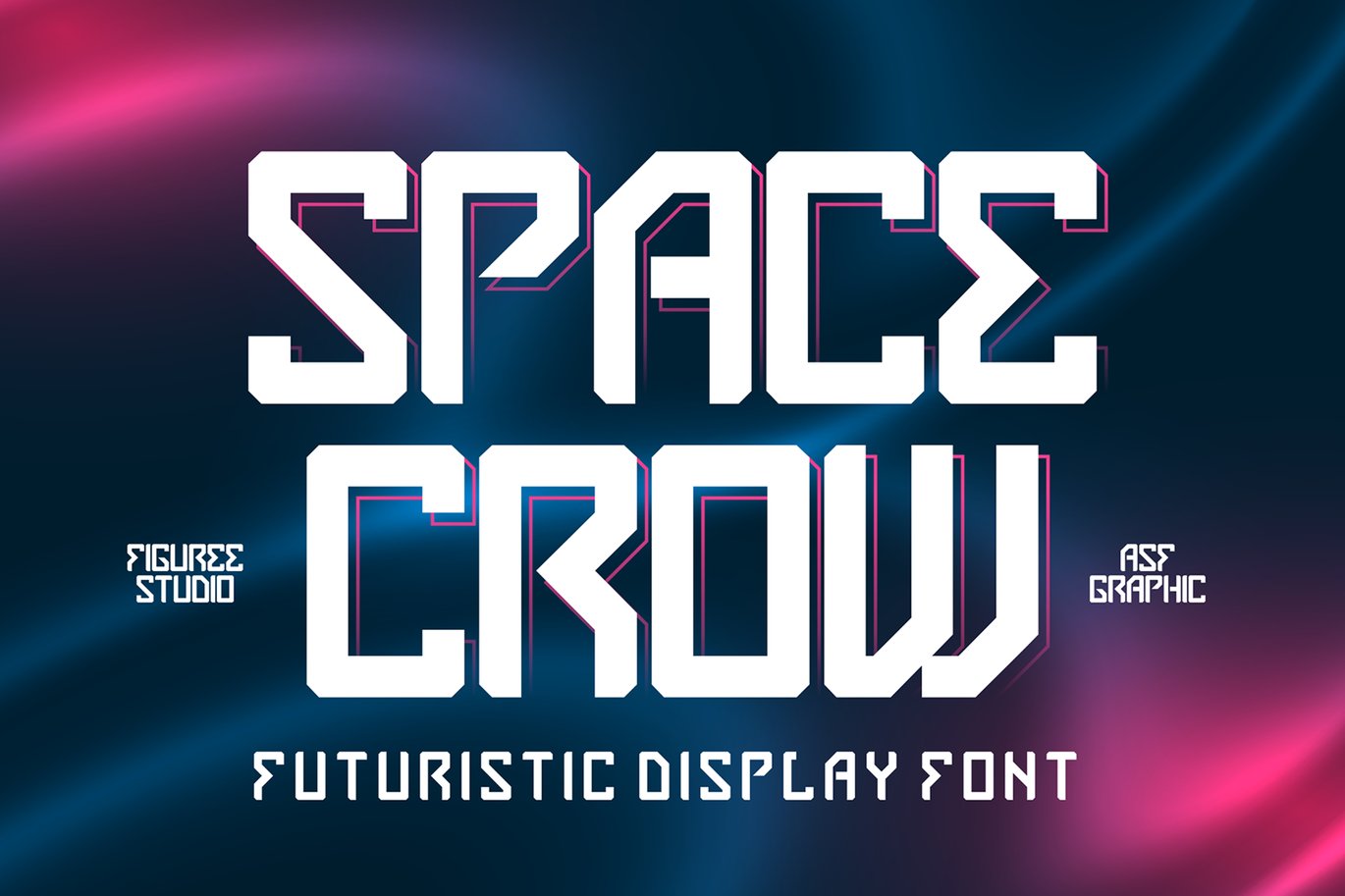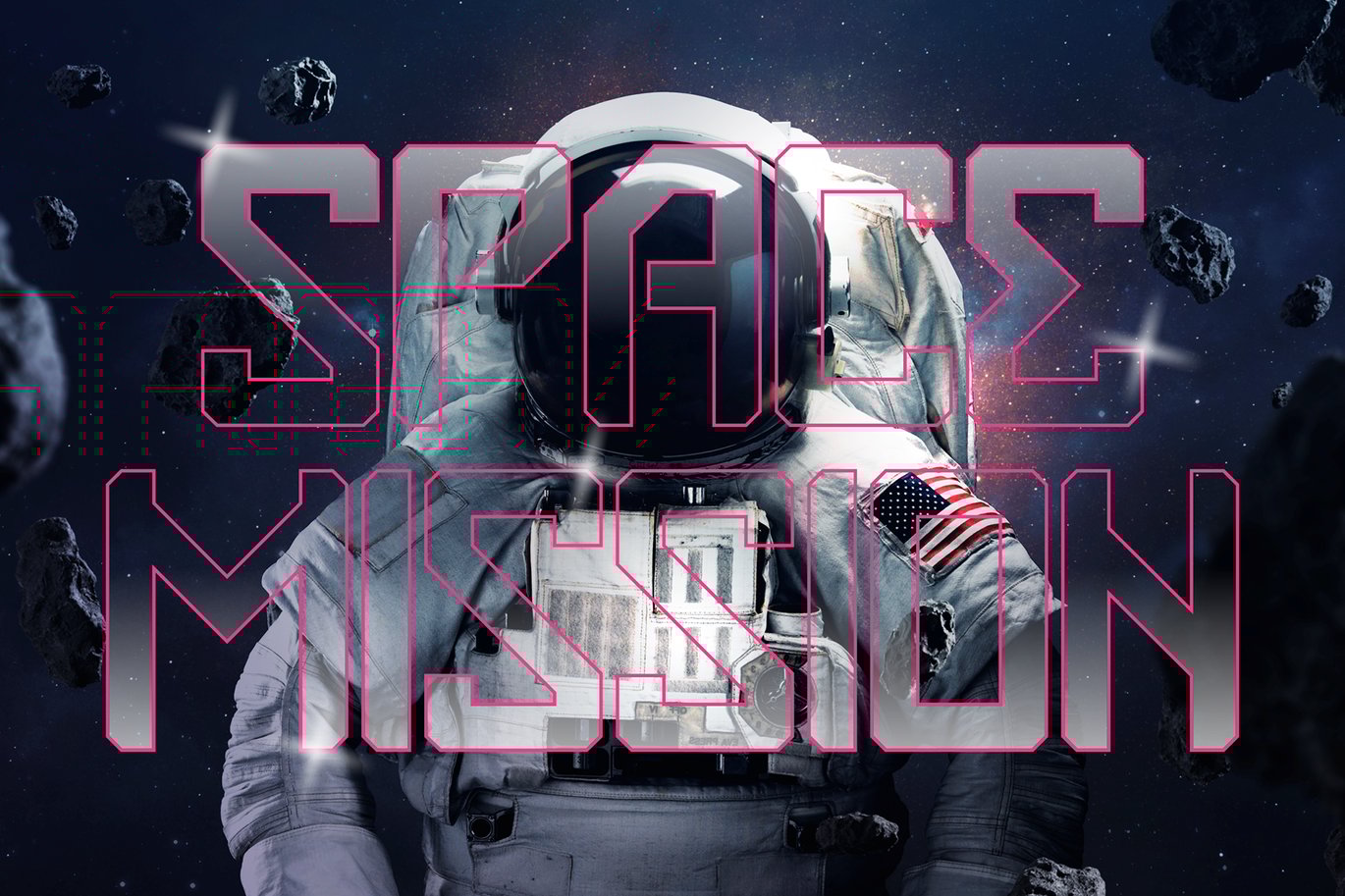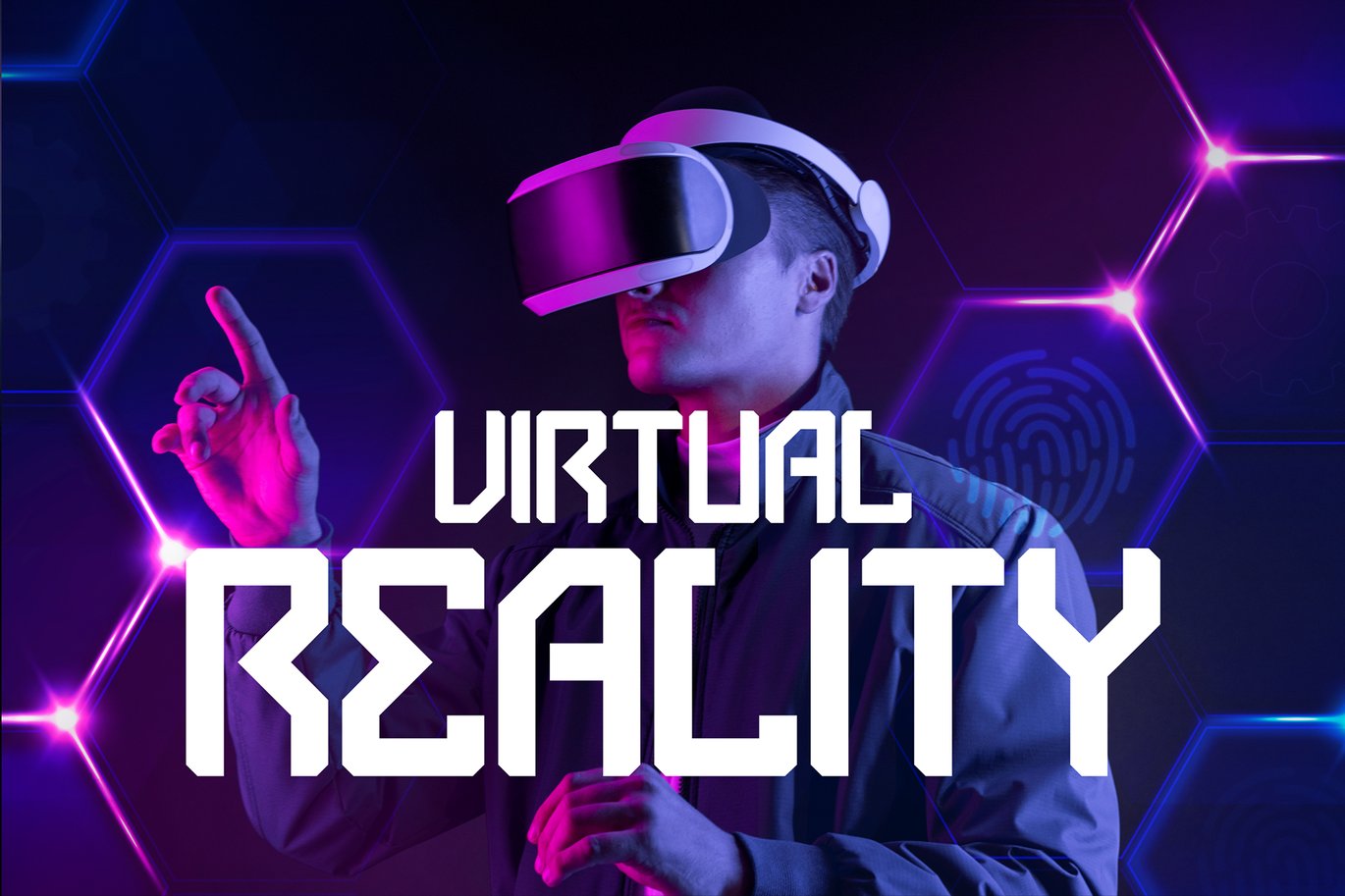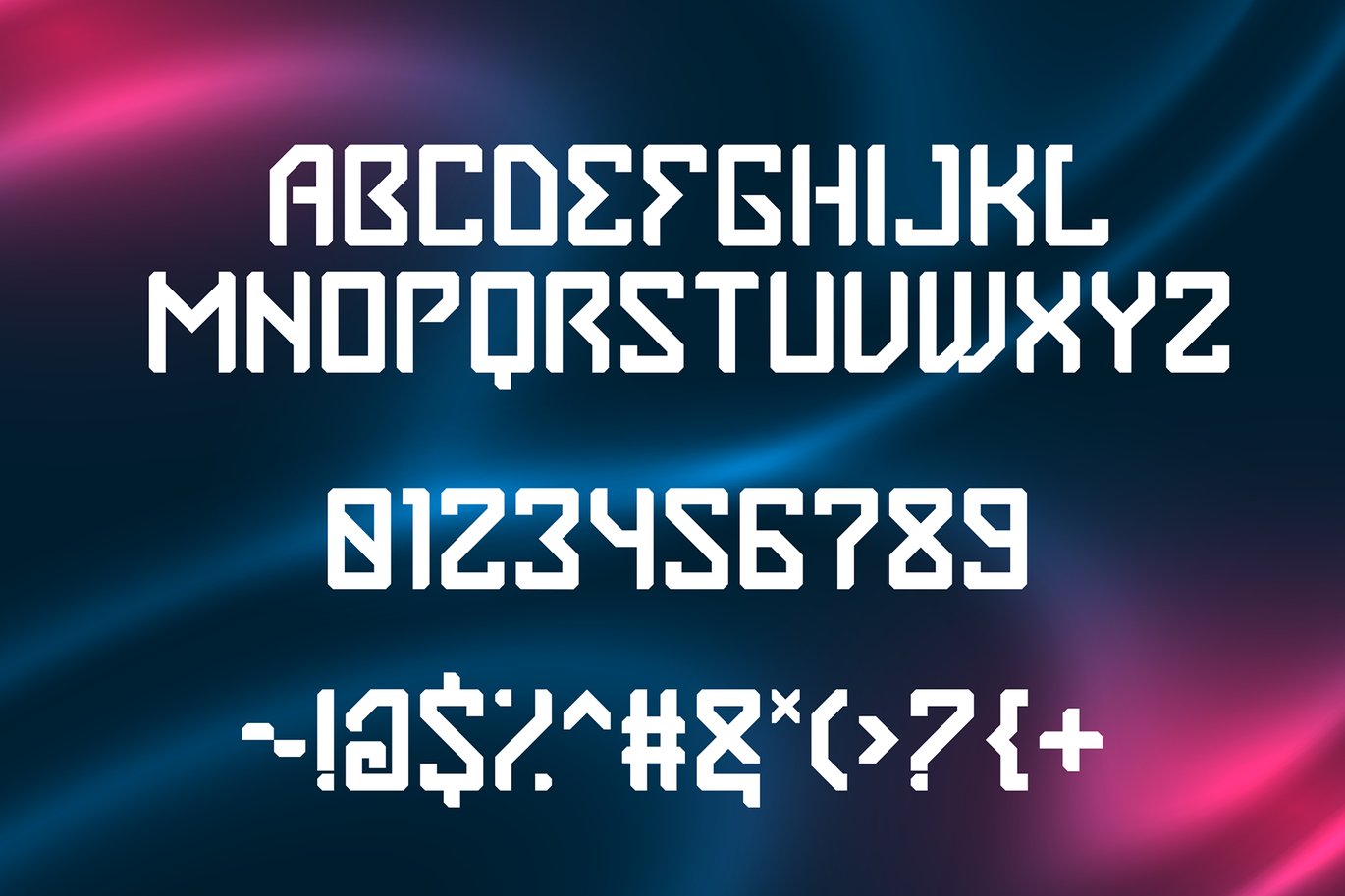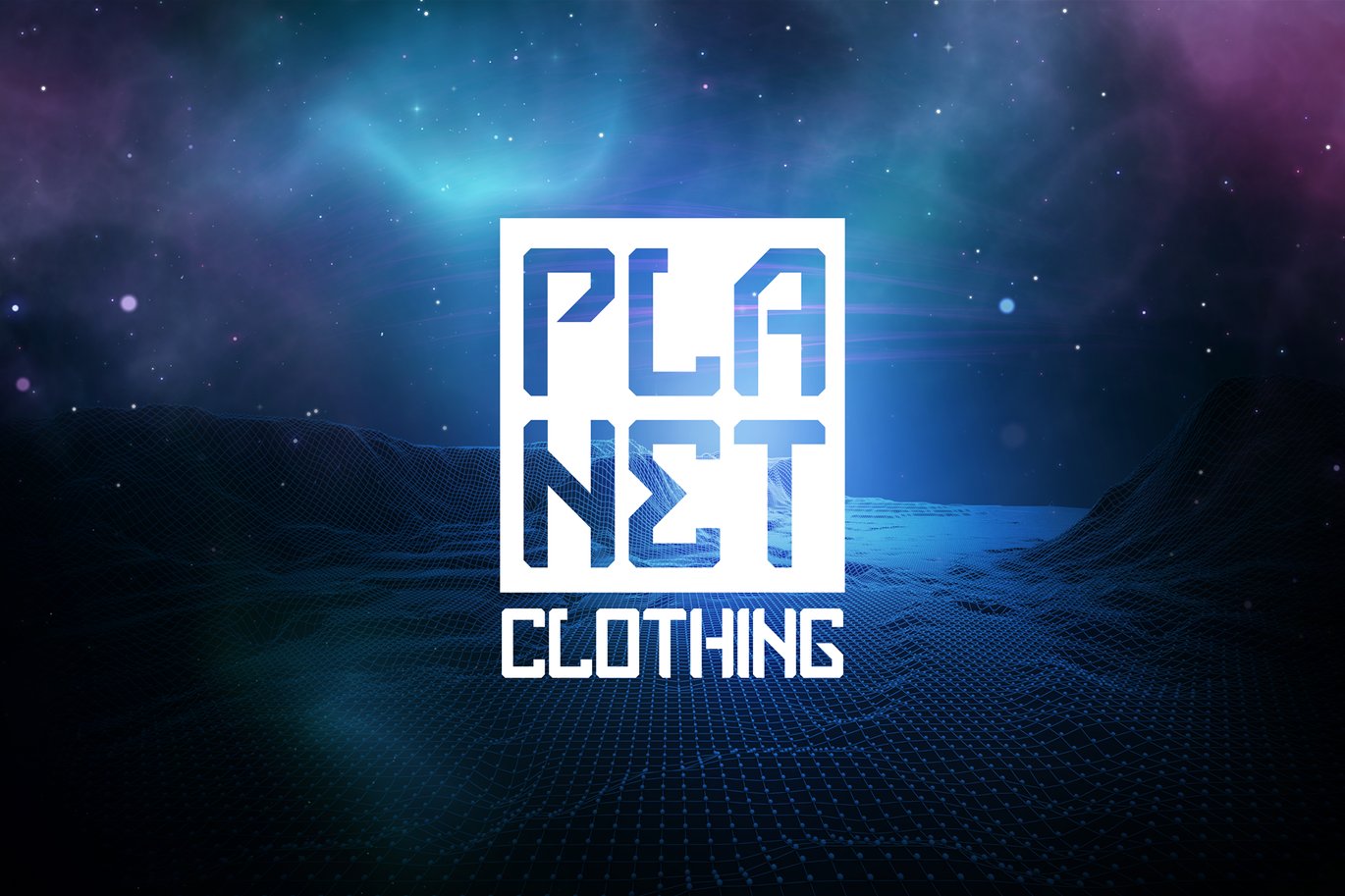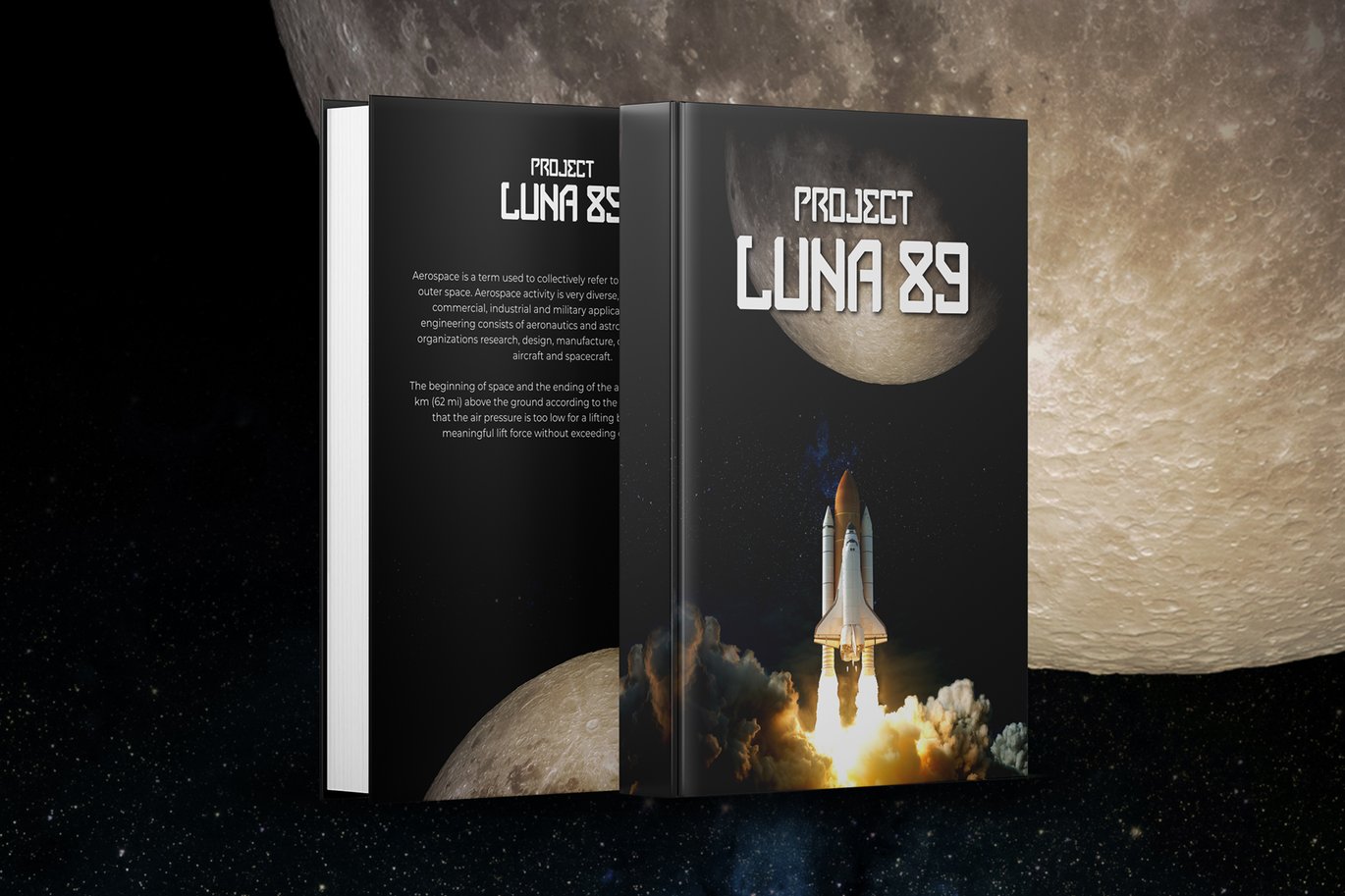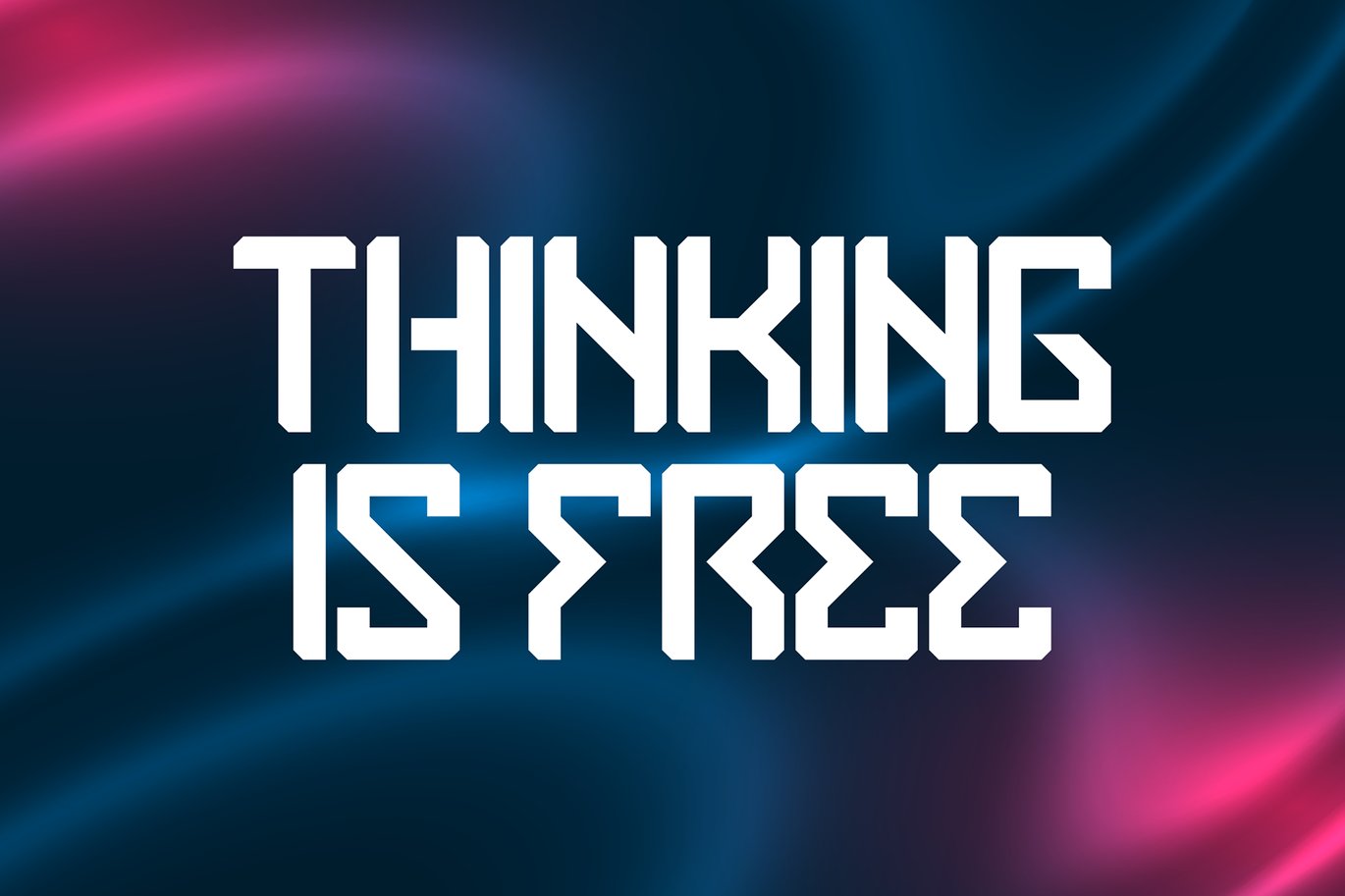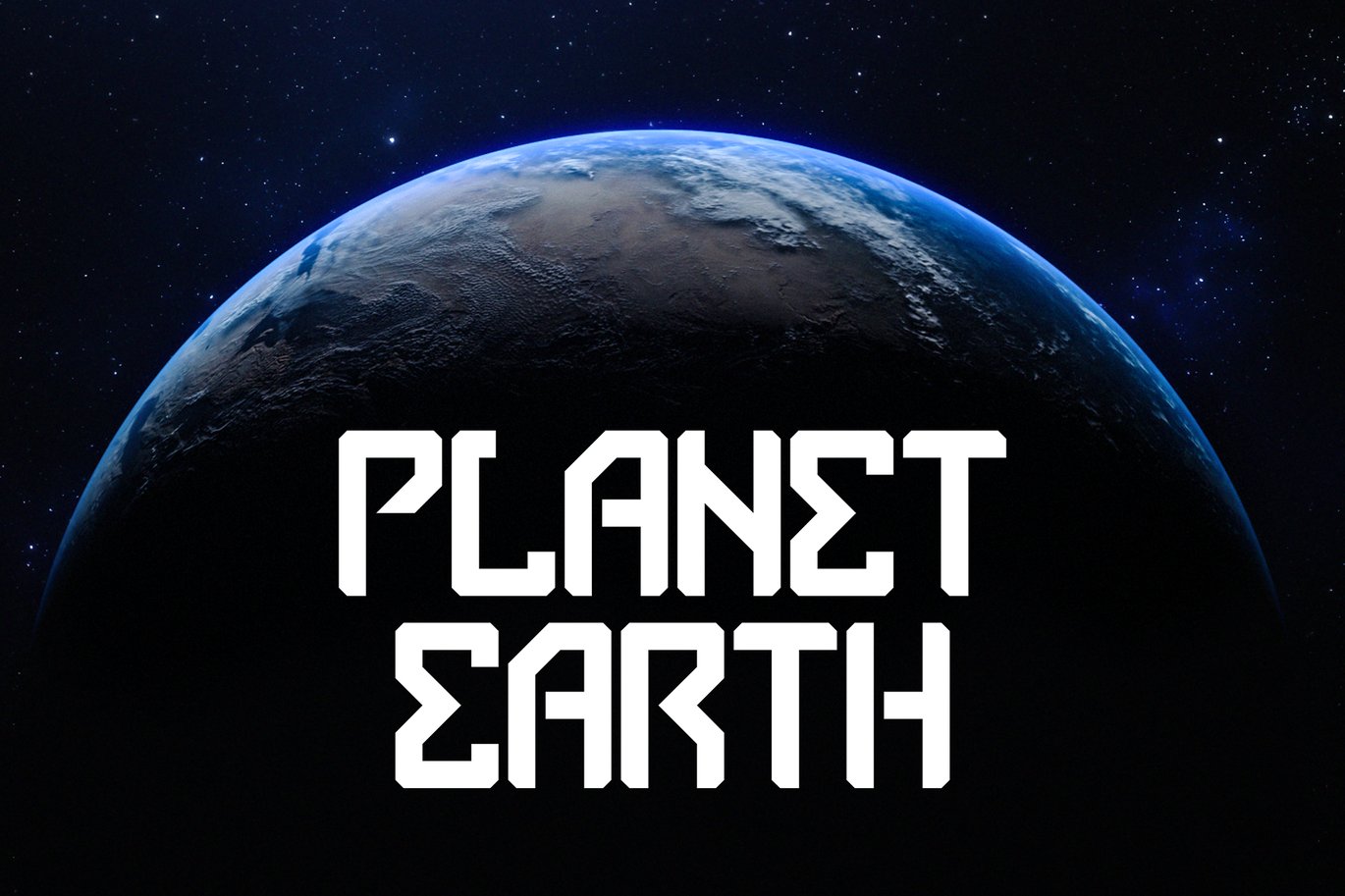
Space Crow – Futuristic Font
Space Crow is a futuristic font that carries uppercase characters with a set of numbers that showcase a futuristic unique design in addition to galactic alternates. Take a trip through time and use it for movie posters set in space or in the future. Very suitable for sci-fi enthusiasts, create cards and personalized artwork, but don’t let the adventure stop with you. Use Space Crow for UX and UI projects and allow the rest of the world to get a glimpse of what the future may hold.